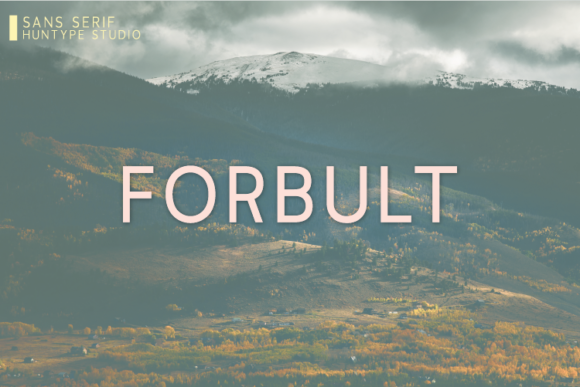
Introduction to Forbult Font
Forbult is a stylish and delicate sans serif font.
It has a clean, neat and smooth vibe and it will be a hit for any design that you want to add it to .
Forbult Font offers exceptional quality and versatility, making it a valuable addition to your design toolkit. Whether you’re creating for personal projects or commercial use, Forbult Font delivers professional results.